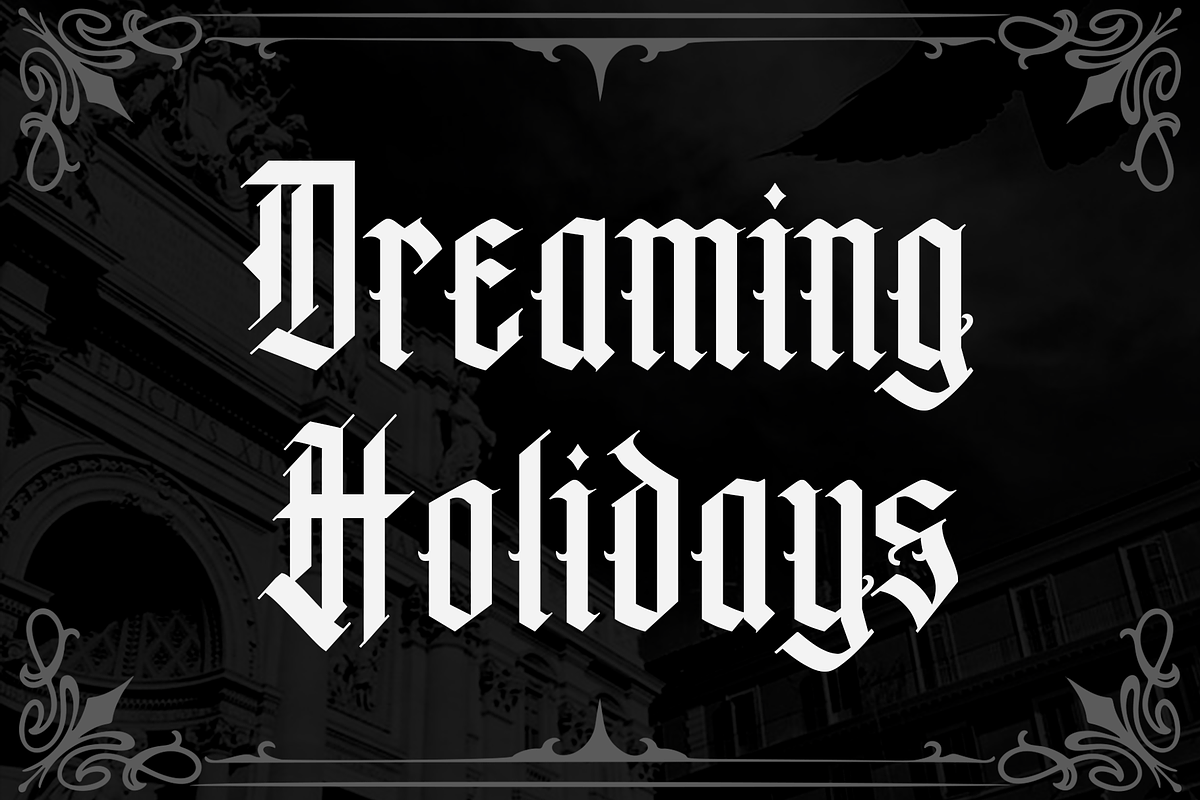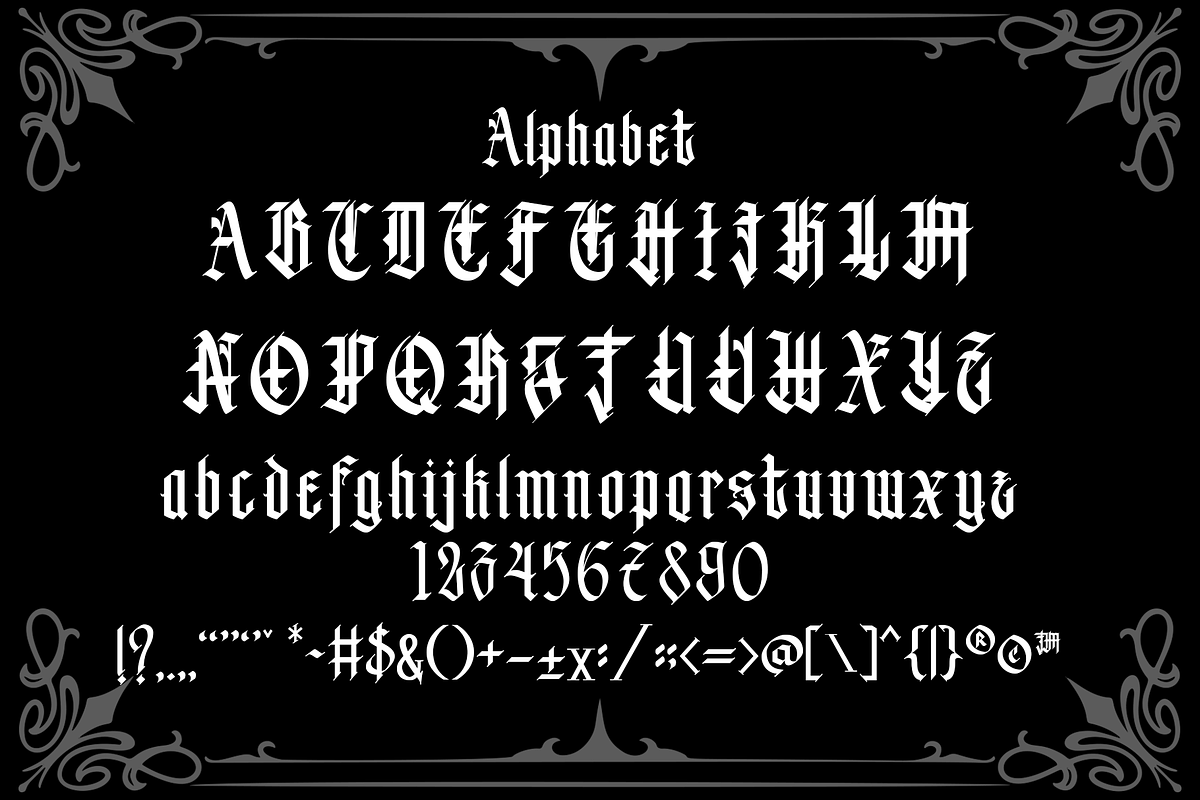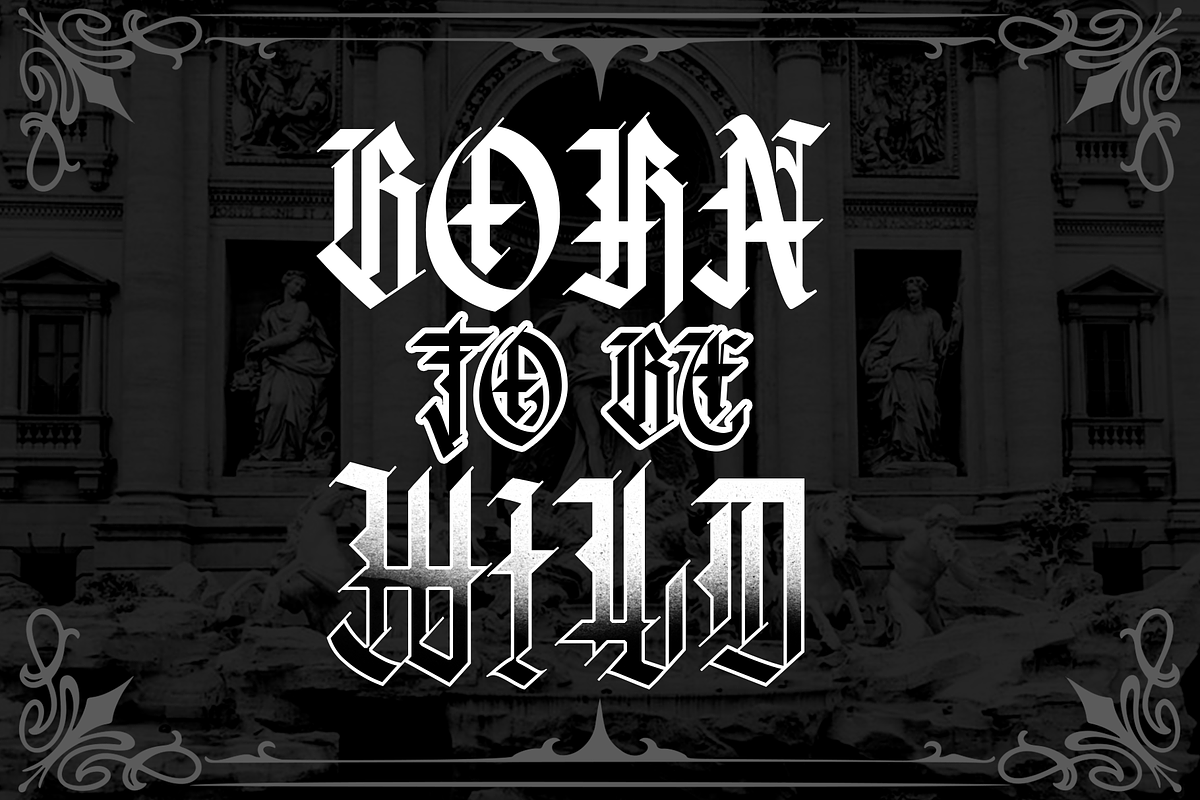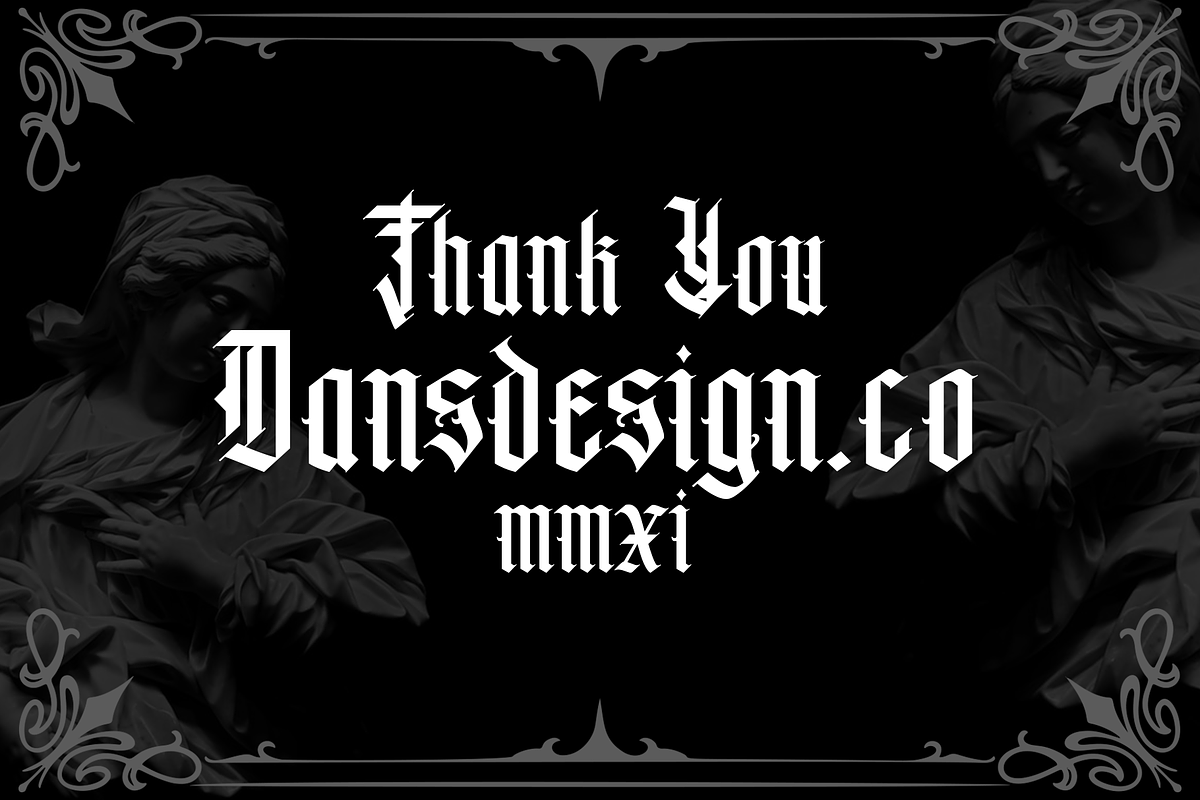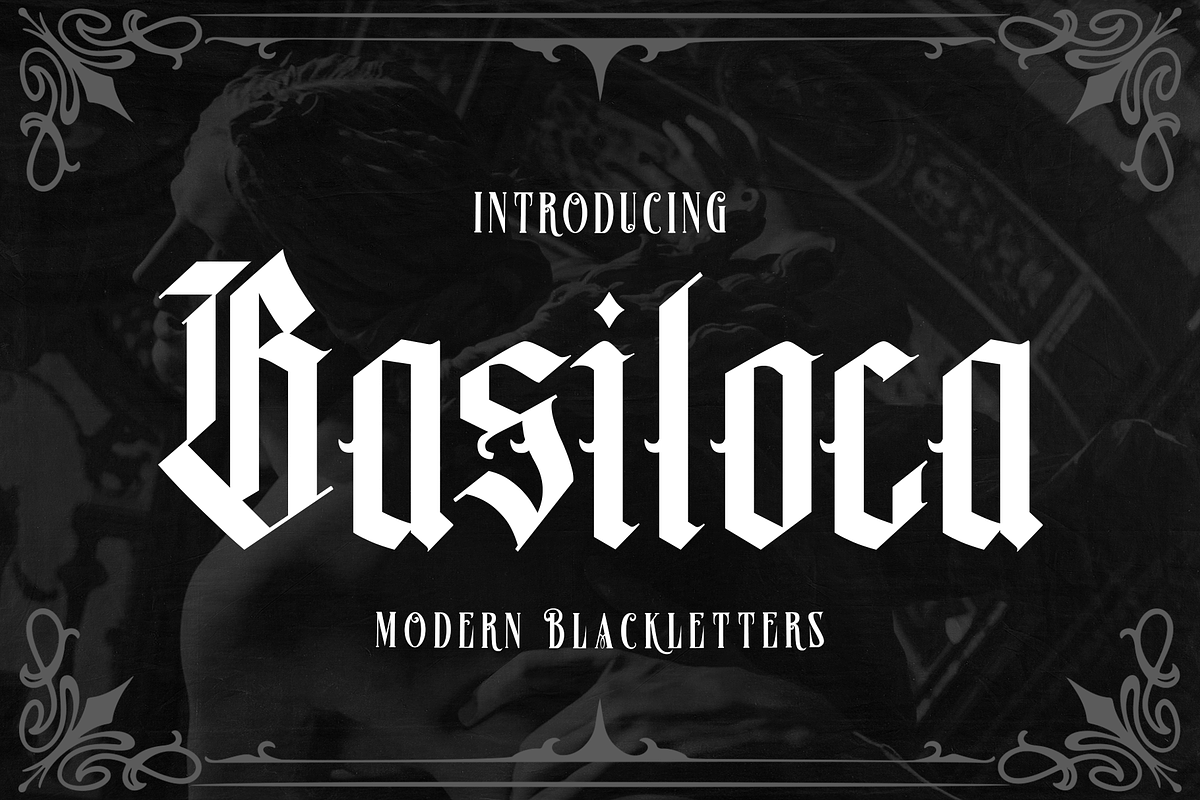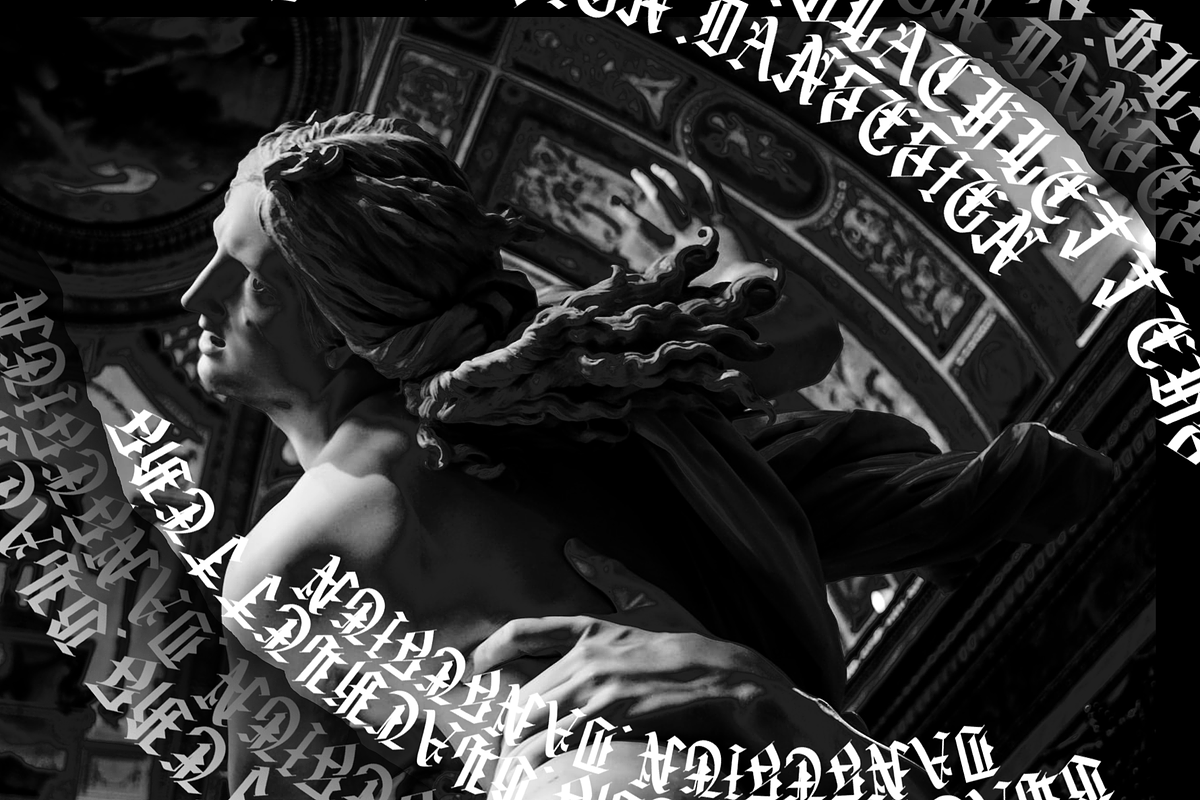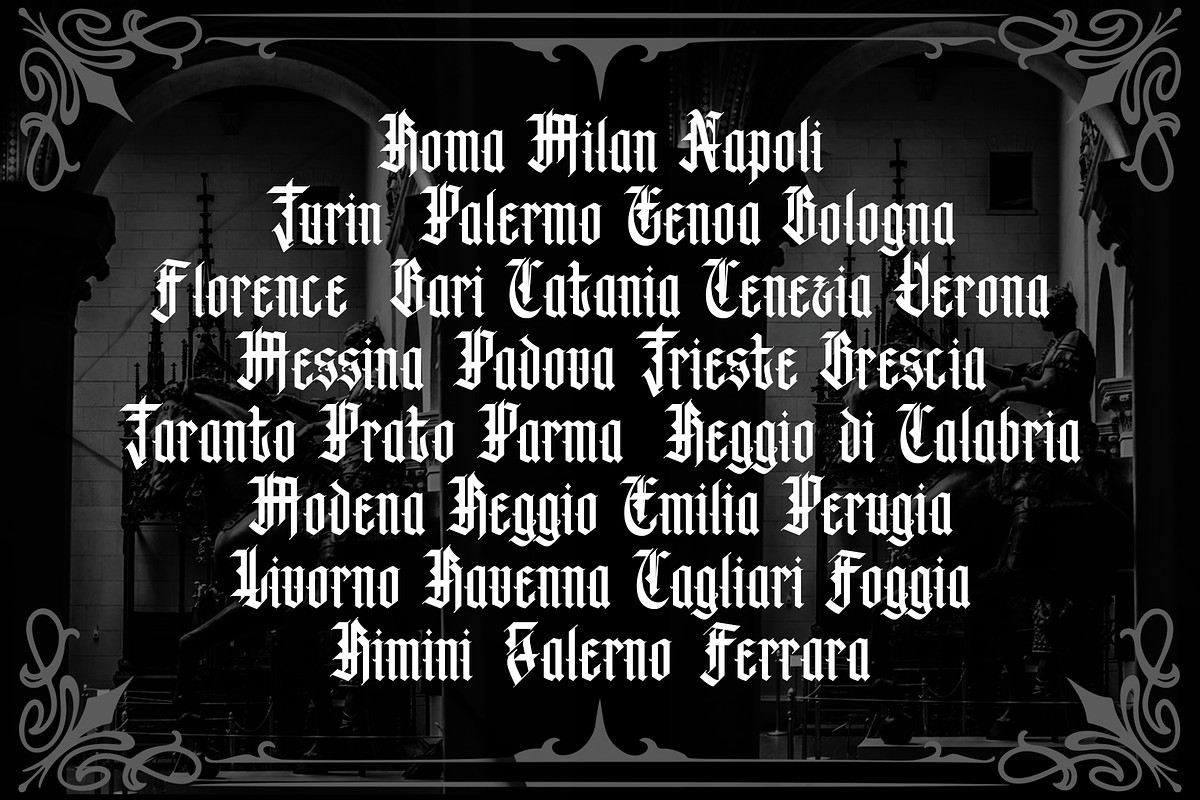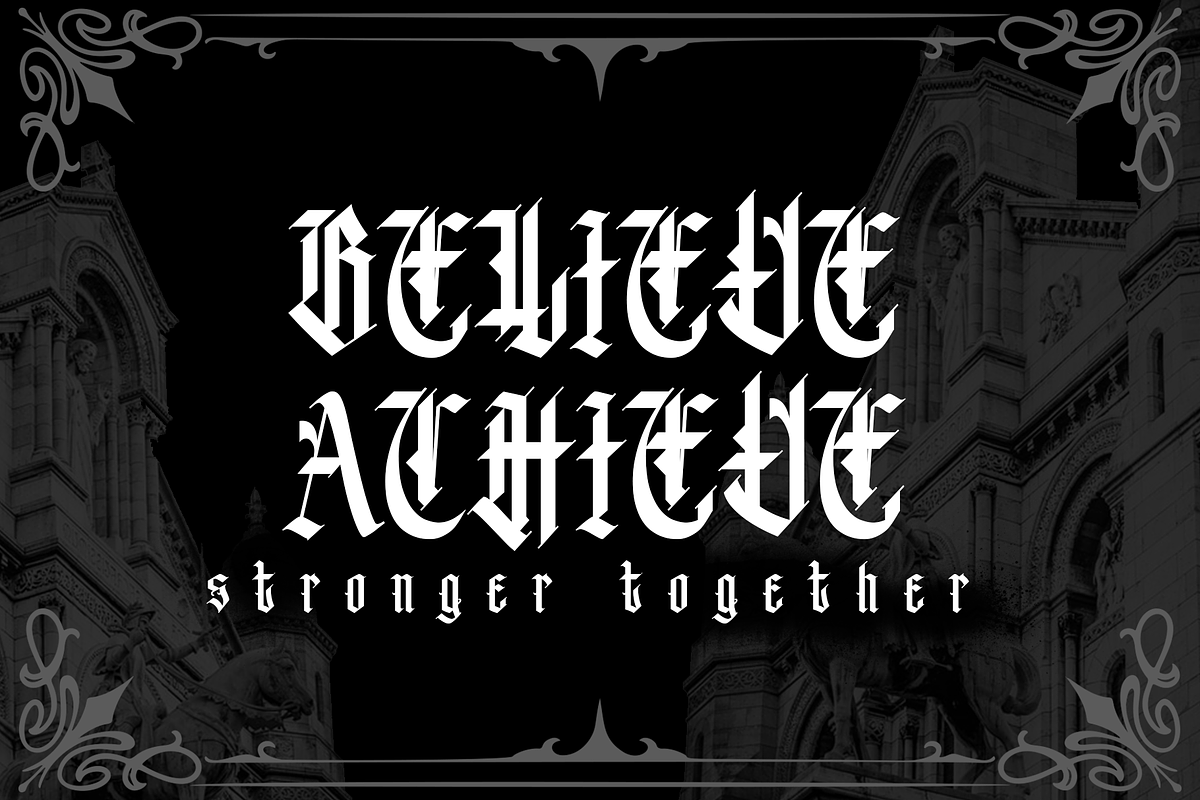
BASILOCA Modern Blackletter
Dansdesign Proudly present BASILOCA Modern Blackletter vintage font, This font is made with references to various letters that I combine and design with my style.
BASILOCA Blackletter are great and usefull for product logo, poster title, headline, packaging, badge, wedding card logo, clothing brand logo, Vintage design and much more